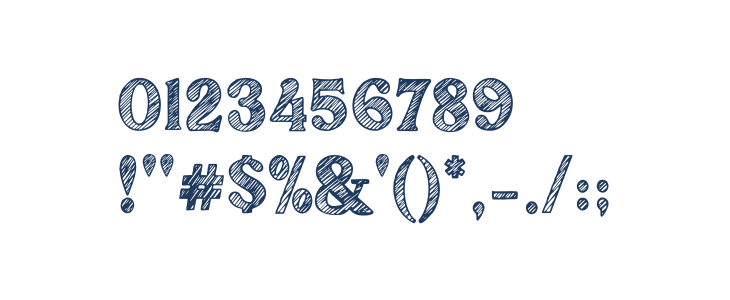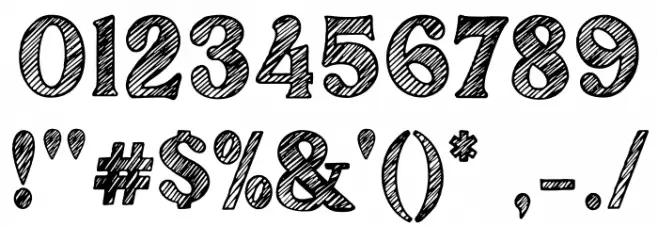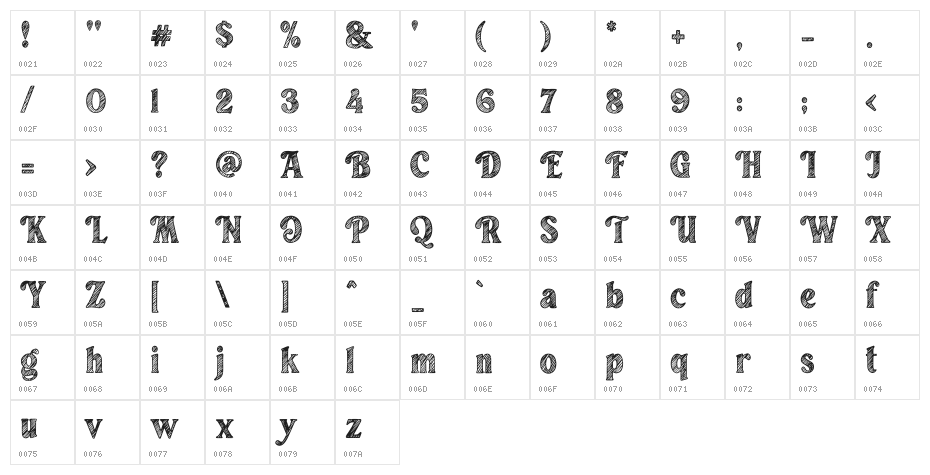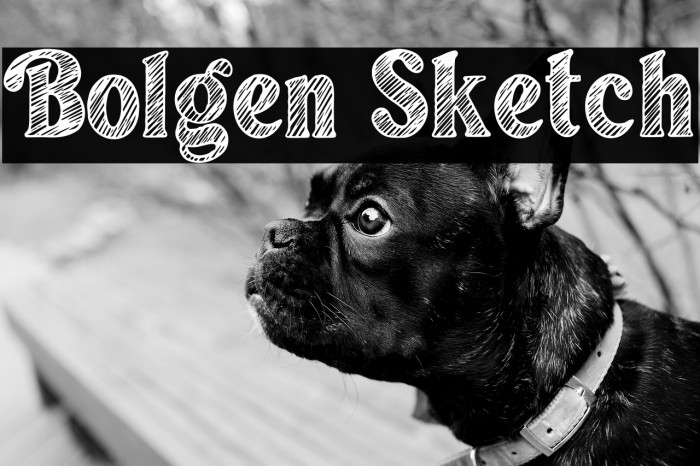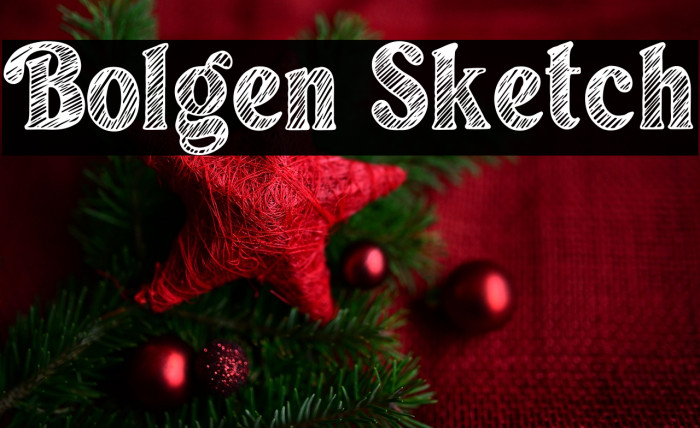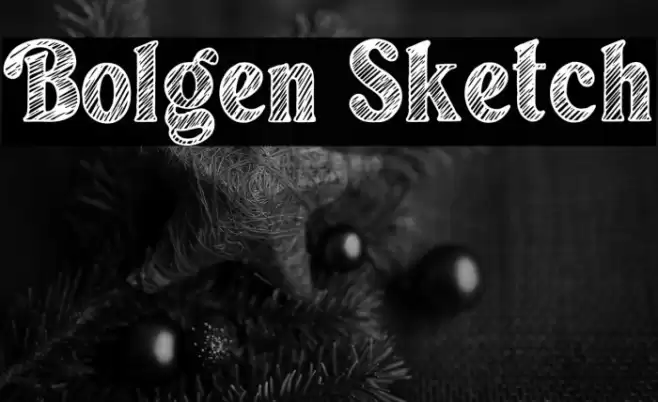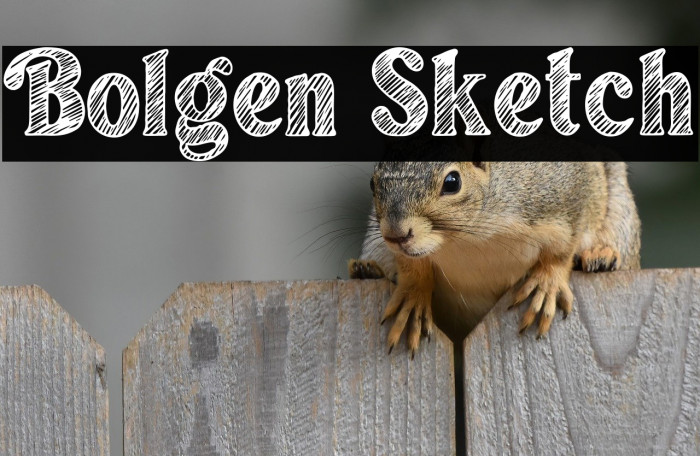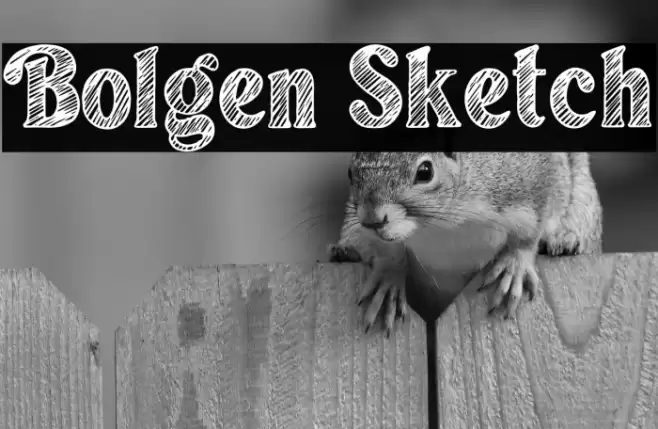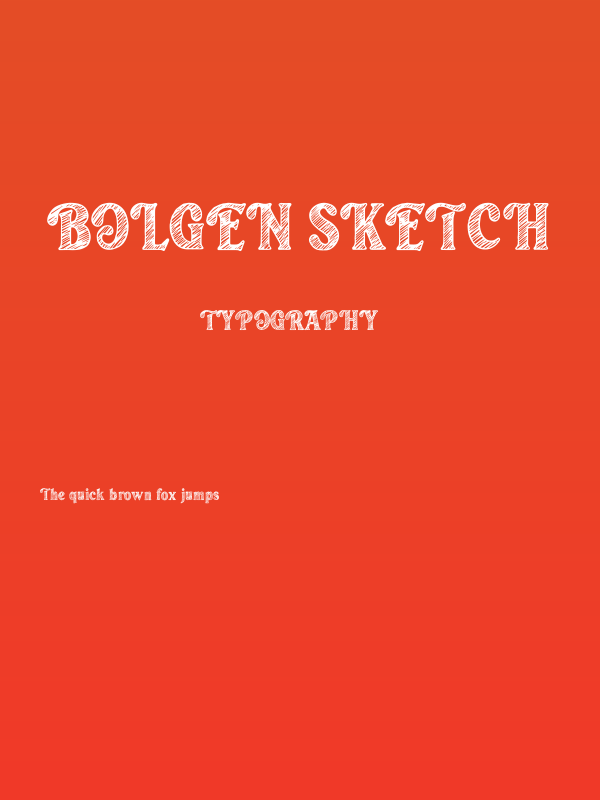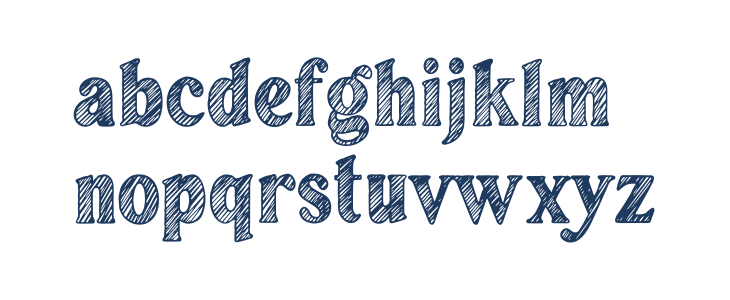
Bolgen Sketch Font
Bolgen Sketch Description
This font features a playful and artistic sketch style, with each character appearing as if it has been hand-drawn with a pencil. The letters are bold and have a textured, cross-hatched fill that gives them a unique, dynamic appearance. The strokes are thick and consistent, providing a strong visual impact. The uppercase and lowercase letters maintain a consistent style, with rounded edges and a slightly whimsical feel. Numbers and special characters are equally stylized, ensuring a cohesive look across all elements. This font is perfect for projects that require a creative and informal touch, such as children's books, posters, or artistic branding.
| Proposed Projects | Ideal for children's books, creative posters, artistic branding, and informal invitations. |